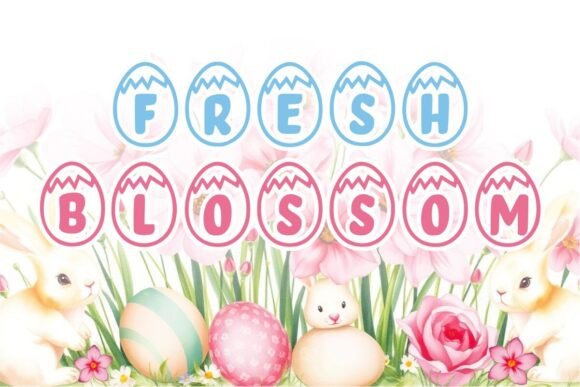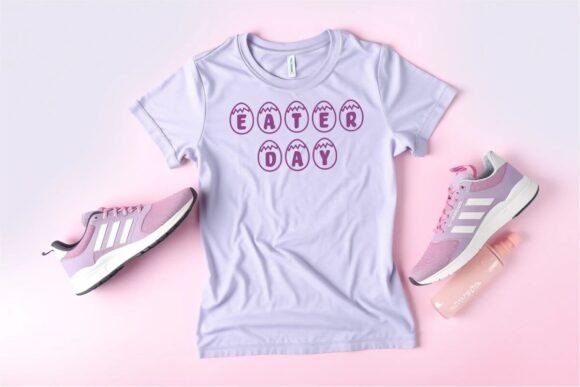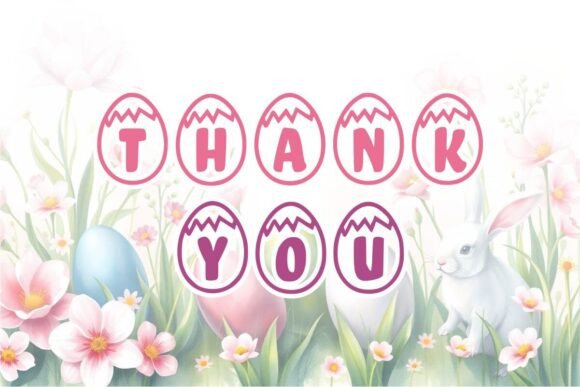
Easter Bunny Font: The Perfect Addition to Your Easter-Themed Designs
Are you looking for a fun and playful font to add to your Easter-themed designs? Look no further than the Easter Bunny Font! This cute and playful display font is specially designed for Easter day letters and is perfect for adding a touch of whimsy to any project.
What Makes Easter Bunny Font So Special?
The Easter Bunny Font is a simple yet bold design that is sure to catch the eye. Its playful and fun design makes it perfect for Easter-themed designs, such as Easter cards, invitations, and decorations. The font is also versatile, making it suitable for a wide range of projects, from DIY crafts to professional design work.
Key Features of Easter Bunny Font
- Cute and Playful Design: The Easter Bunny Font has a fun and playful design that is sure to add a touch of whimsy to any project.
- Simple yet Bold: The font’s simple design makes it easy to read, while its bold style ensures that it stands out.
- Perfect for Easter-Themed Designs: The Easter Bunny Font is specially designed for Easter day letters and is perfect for adding a fun touch to any Easter-themed project.
- Versatile: The font is suitable for a wide range of projects, from DIY crafts to professional design work.
How to Use Easter Bunny Font in Your Designs
The Easter Bunny Font is easy to use in a variety of design projects. Here are a few ideas to get you started:
- Easter Cards and Invitations: Use the Easter Bunny Font to create fun and playful Easter cards and invitations.
- Easter Decorations: Add a touch of whimsy to your Easter decorations with the Easter Bunny Font.
- DIY Crafts: Use the Easter Bunny Font to create fun and playful DIY crafts, such as Easter-themed banners and signs.
- Professional Design Work: The Easter Bunny Font is also suitable for professional design work, such as creating Easter-themed advertisements and social media graphics.
Why Designers and Crafters Love Easter Bunny Font
Designers and crafters love the Easter Bunny Font for its versatility and playfulness. The font is easy to use and can be incorporated into a wide range of design projects. Its bold and simple design makes it perfect for creating eye-catching Easter-themed designs.
Tips for Using Easter Bunny Font Effectively
- Use it Sparingly: Use the Easter Bunny Font sparingly to add a touch of whimsy to your designs.
- Pair it with Other Fonts: Pair the Easter Bunny Font with other fonts to create a unique and eye-catching design.
- Experiment with Colors: Experiment with different colors to find the perfect combination for your Easter-themed design.
The Easter Bunny Font is a fun and playful display font that is perfect for adding a touch of whimsy to any Easter-themed design. Its simple yet bold design makes it easy to read and ensures that it stands out. Whether you’re a designer or crafter, the Easter Bunny Font is a great addition to your design toolkit.